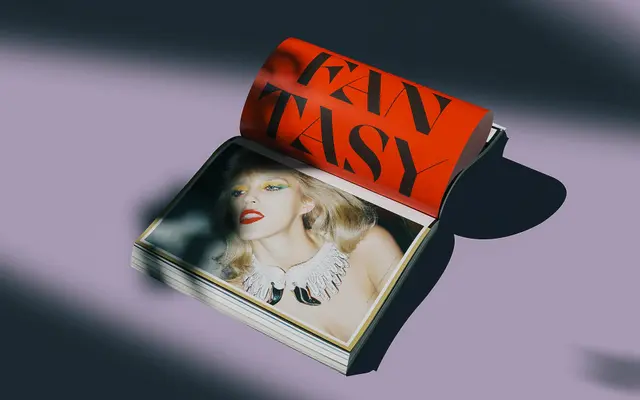
Cosi Azure
Nikolas Type · Nikolas Wrobel · 2019
A radically contrasted display typeface by Nikolas Wrobel, spinning off Cosi Times with jagged pointed forms and heavy irregular masses drawn from Mediterranean landscapes.
Released in 2019, Cosi Azure pairs delicate pointed letterforms against bold, uneven strokes in a deliberately anti-modular approach to type design. The four styles range from Bold through to a Black Stencil variant, giving the family an expressive range suited to editorial headlines and cultural branding. Its character comes from the tension between refined and rough, reportedly drawn from personal experience of Sardinia and Corsica.
Cosi Azure is a radically contrasted display typeface with delicate pointed forms set against bold irregular chunks, placing it firmly in the high-contrast display category rather than any conventional serif or sans tradition.